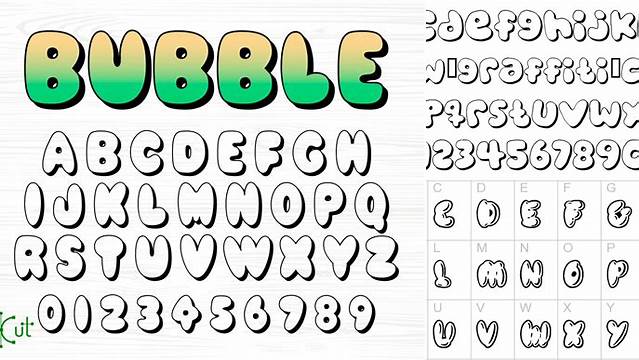
Cool Google Fonts For Bubble Letters
Hey guys! Ever wanted to make some super fun and eye-catching text? Well, Google Fonts are your best friend! And when it comes to creating that groovy, bubbly look, you've got a whole treasure trove of options. In this article, we're diving deep into the world of Google Fonts bubble letters, exploring how to pick the perfect font, use them effectively, and even throw in some creative ideas to spark your imagination. Let's get this party started and make some awesome text!
1. Unleashing the Power of Google Fonts for Bubble Letters
So, you're thinking Google Fonts bubble letters, huh? Smart choice! Google Fonts is this amazing, free library with tons of fonts, all ready for you to use. The beauty of it is that you can use them for pretty much anything – your website, your social media posts, or even printed materials. You don't have to worry about licenses or anything like that. It's totally free! Bubble letters are these rounded, playful fonts that are perfect for grabbing attention. They're fun, friendly, and just scream “look at me!” Think about those cool posters, party invitations, or even logos that have that bouncy feel. Google Fonts offers a bunch of options to nail that look. Plus, they’re super easy to integrate into whatever you’re working on. Whether you're a seasoned designer or a total newbie, Google Fonts make it simple to bring your bubble letter visions to life. From simple websites to fancy print materials, these fonts can bring a sense of fun and creativity to your designs. You can find tons of resources to help you, and once you get the hang of it, you’ll be creating awesome designs in no time. This way, you can create a unique style that resonates with your audience and make your content stand out. It's time to create some fantastic designs!
2. The Best Google Fonts for Bubble Letter Designs
Alright, let's get down to the nitty-gritty and talk about the best Google Fonts for those awesome bubble letters. Choosing the right font is like picking the right outfit – it needs to match the occasion and your personality! First up, we've got Fredoka One. This font is bold, rounded, and super friendly. It's perfect for headlines and short text blocks. It has a great vibe for kids' stuff, invitations, or anything that needs a touch of fun. Next, we have Luckiest Guy. This font is more playful with a handwritten feel, so it's a great choice if you want something that looks like it was drawn by hand. It's perfect for adding a bit of personality. Then there's Chewy. This one’s a true bubble font with a rounded shape and a smooth, almost fluffy appearance. It’s perfect for creating that classic bubble letter look. Other great options to consider are Bangers, Permanent Marker, and Coming Soon. These fonts offer different styles of bubble-like text, ensuring your designs are unique. Try out a few different fonts and see which ones fit your design best. Remember, the best font is the one that fits your project. You can check the Google Fonts website. Play around with them, see how they look in different sizes, and experiment with colors. Have fun finding the right font!
4. Tips for Maximizing the Impact of Your Bubble Letter Fonts
So you've chosen your font, and you're ready to create something awesome using Google Fonts bubble letters? Awesome! Here are some pro tips to make your designs pop. First, think about the context. What's the message you're trying to convey? Is it for a kids' party or a professional logo? The context will help you pick the right font and styling. Next, play with color. Bubble letters are all about being fun, so don't be afraid to use bright colors, gradients, or patterns. Contrast is key. Ensure your text stands out from the background. Experiment with different colors to see what works best. Consider the size and spacing. Bubble letters can look great at large sizes. Make sure your text is legible. Also, pay attention to the spacing between the letters. Too close, and they'll look cramped; too far apart, and they’ll lose their impact. Don’t overload your design. Less is often more. Keep your text concise and your layout clean. Make sure the font is legible at different sizes. Use different font weights and styles to give visual interest. If you’re designing for print, make sure to consider things like paper type and printing techniques. It’s about creating a balance between the font and the overall design. Your goal is to make a statement, so experiment with different elements to see what works best.
5. Bubble Letter Styles: From Classic to Contemporary
Okay, let's talk about the different styles you can create with Google Fonts bubble letters. You can create a classic look, which includes rounded shapes, thick outlines, and bright colors. These are perfect for invitations, posters, and anything that needs a touch of nostalgia. You can also go modern by adding shadows, gradients, and 3D effects. This gives the letters a more contemporary feel, perfect for logos, websites, and social media graphics. Experiment with different effects to create something unique. How about a vintage style? Consider using textures, distressed effects, and muted colors. Combine these with a bubble font for a retro vibe. You can even personalize the style by adding embellishments. Think about hearts, stars, or any other element that suits your message. Create layered designs by stacking letters on top of each other, or try incorporating a background. Combine styles and effects to create a unique design that is perfect for your needs. The key is to have fun and experiment. Try different approaches until you find what works best. Make sure the style is easy to read. Create visual elements to catch the viewer's attention. Ultimately, the style you choose depends on your project and preferences, so have fun exploring all the options!
6. Pairing Bubble Fonts with Other Font Styles for Stunning Designs
Want to take your Google Fonts bubble letters designs to the next level? Try pairing them with other fonts! Combining fonts can create a balanced and visually interesting design. Here's how to do it. First, consider the combination. Pair a bubble font with a clean, sans-serif font for a modern look. This contrasts the playfulness of bubble letters with a clean look. Next, pair a bubble font with a classic serif font for a vintage or retro feel. Choose fonts that complement each other. Consider the style and tone of the fonts. Don’t pair two fonts that compete for attention. The goal is to use the secondary font to highlight the primary font. Think about the hierarchy. Use your bubble font for headings and titles, and the other font for body text. This will help readers easily understand your message. Play with the sizes and weights. Use different sizes and weights to create contrast and make your design dynamic. Try combining a bold bubble font with a lighter sans-serif font for a balanced look. Try different combinations and see what works best. The important thing is to make sure your fonts complement each other. By experimenting with different font combinations, you can create designs that are both beautiful and effective. Experiment to see what works best for your projects!
7. Creative Uses of Google Fonts Bubble Letters in Different Fields
Google Fonts bubble letters aren't just for kids' birthday parties. They're super versatile and can be used in all sorts of different fields. In graphic design, they're perfect for logos, branding materials, and social media posts. The playful look helps your brand stand out and convey a sense of fun. In education, use them for classroom decorations, posters, and learning materials. Bubble letters make learning fun for kids! For marketing, bubble fonts are great for creating eye-catching ads, flyers, and website graphics. These draw the eye and grab attention. In event planning, use them for invitations, banners, and decorations. They add a festive and playful touch. In the fashion industry, bubble fonts can be used for clothing designs, website layouts, and promotional materials. In the food industry, bubble letters are perfect for menu boards, food packaging, and restaurant signage. They add a fun and approachable vibe. The key is to be creative and think outside the box. Consider the tone and message you're trying to convey and choose a font that fits. By using Google Fonts bubble letters in a creative way, you can create designs that are both visually appealing and effective. Remember to consider your target audience and the overall branding of your project.
8. Bubble Letter Animation and Motion Graphics with Google Fonts
Want to make your Google Fonts bubble letters even cooler? Try adding animation! There are tons of ways to bring your bubble letters to life using motion graphics. First, you can create animated logos. An animated logo can make your brand more memorable. You can use animation to show off your brand. Next, try animating text for social media. Animated text grabs attention. You can create short videos. Then, try creating animated website headers. An animated header can make your website more engaging. Use animation to introduce a sense of fun. Also, use animation for video intros and outros. Animated text can be incorporated into your videos. You can use them to create transitions and add effects. Consider creating animated presentations. Animated text can make presentations more interesting. There are many tools available, and they are usually easy to learn. With a little practice, you can easily create fantastic animated content using Google Fonts bubble letters. Always make sure the animation enhances the message. Make sure the animation doesn't distract from the core content. Use animations to communicate a sense of playfulness. Experiment with different animations to find the right style for your project.
9. Google Fonts Bubble Letter Generator Tools: A Quick Guide
Okay, guys, let’s talk about some quick ways to create Google Fonts bubble letters. There are tons of online tools and Google Fonts bubble letter generators that can help. These tools let you type in your text, select a Google Font, and instantly see what it looks like. Many tools offer options to customize the appearance of your letters. You can adjust the size, color, and effects. Many generators also allow you to download the image of the text. Some generators even provide options for animation or 3D effects. When selecting a generator, consider ease of use, customization options, and the types of outputs it provides. You can use these tools to generate text for social media posts, website graphics, or even print materials. Some of them let you add special effects like shadows and outlines to your letters. You can create text in different styles. By using these tools, you can save time and create amazing bubble letters quickly and easily. There are free and paid options. Be sure to check the terms and conditions of use. Most of the online tools are easy to use, so you can start creating designs right away. Have fun playing around with them!
10. Bubble Letter Digital Art: Creating Wallpapers and Digital Artworks
Ready to get creative with Google Fonts bubble letters? Dive into the world of digital art! You can create beautiful wallpapers for your phone or computer. Create custom wallpapers with unique designs. You can create backgrounds by adding shapes, gradients, and textures. Add a personal touch to your device. You can also create digital artwork for social media. Use your artwork to create posts. Add your creations to your feeds. Next, you can design printable art. Create art to print and frame. Customize your home decor. Experiment with color palettes, effects, and layouts to make your artwork unique. You can design patterns and textures to use in your artwork. Play around with different styles, from simple to complex. Use these fonts to create graphics for stickers, posters, or even merchandise. There are so many options! The key is to experiment and have fun. The best part is that you can share your artwork online with your friends and family. Digital art can be a great way to express yourself and show off your creativity. Create artwork that reflects your style and personality. Let your creativity run wild and create stunning digital artworks.
11. Customizing Bubble Letters: Adding Shadows, Outlines, and 3D Effects
Want to make your Google Fonts bubble letters even more impressive? Let's talk about customizing them with cool effects! Adding shadows is a great way to give your letters depth and make them pop off the page. Shadows can create a 3D effect. You can add a drop shadow to give the letters a shadow. Next, add outlines to create a defined look. Outlines can help the letters stand out. You can also customize the outline color. Consider adding 3D effects. Create the illusion of depth by adding 3D effects. You can create a 3D letter look. Experiment with gradients. Use gradients to add depth and dimension to your letters. You can use multiple colors. You can add different effects with different software. Try experimenting with your favorite design tools. The goal is to make your letters visually interesting. The best part is that you can experiment with different options until you get it just right. Keep playing around until you find a style that works for you. With these customization options, your bubble letters will definitely grab attention!
12. Bubble Letters for Branding: Logos, Social Media, and More
Google Fonts bubble letters are a fantastic choice for branding. If you want a fun, approachable brand, bubble letters might be perfect! Consider creating logos that are playful and memorable. A logo is often the first thing people see when they encounter your brand. Use bubble letters for social media graphics. Social media graphics will make your posts stand out. You can also create fun and engaging content to connect with your audience. For packaging design, bubble letters can add personality to your products. Use bubble letters for advertising campaigns. Bubble letters will catch the eye and grab attention. Consider using bubble letters in your website design. Use bubble letters to create a friendly and approachable feel. Remember, consistency is key when branding. Use your font across all platforms to create a consistent brand identity. Play around with the fonts and the colors. By using Google Fonts bubble letters in your branding, you can create a memorable identity. With this approach, you can create a brand that resonates with your target audience. You can create an identity that builds trust and loyalty.
13. Bubble Letter Printables: Invitations, Posters, and Decor
If you're looking for fun and easy ways to use Google Fonts bubble letters, printables are the way to go! You can create custom invitations for birthdays, parties, or any special event. Invitations are great to add fun and personality. For your kid's room, create posters with fun messages or quotes. Decorate the walls with a playful vibe. Design personalized name tags for events. Use printables to decorate your home or office. Create calendars, planners, and to-do lists to keep organized. You can create wall art. Remember to choose the right font and colors for your printables. Make sure your design is legible. You can easily download Google Fonts and use them in your favorite design software. Consider the paper quality and the printing process. You can create various fun items. Printables are a great way to add a personalized touch to your projects. With a bit of creativity, you can create unique and beautiful printables.
14. Typography and Legibility: Ensuring Your Bubble Letters are Readable
While Google Fonts bubble letters are fun, it's crucial to prioritize legibility. Make sure your text is easy to read. First, consider the font size. Choose a size that is appropriate for your project. A good font size is critical to legibility. Next, think about the font color. Ensure there’s enough contrast between the text and the background. This will make the text stand out. Use good contrast to help the text stand out. Choose the right font weight. Use a font weight to make the letters clearer. Don’t use too many special effects, as they might hurt readability. Consider the spacing between letters. Adjust the spacing to make your letters readable. Remember to choose a font that suits your project. Always proofread your text to catch any errors. If you're using bubble letters for body text, keep it concise. By keeping these tips in mind, your bubble letters will be not only stylish but also easy to read. Readable fonts are important to keep your message clear.
15. Bubble Lettering for Kids: Educational and Creative Activities
Google Fonts bubble letters are a fantastic way to engage kids in educational and creative activities. They make learning fun and exciting! Use bubble letters to create learning materials. Bubble letters can make lessons more fun. Create alphabet posters or flashcards with bubble letters. Your kids will love learning the alphabet. Next, have kids practice writing their names and words. Use bubble letters to make it fun. This will make it easier for kids to remember the words. You can also incorporate bubble letters into coloring pages. Encourage kids to decorate the letters with colors. This will help them develop their creativity. Create word puzzles and games. Create a variety of fun activities. You can create DIY projects. Bubble letters are perfect for creative activities. Use bubble letters for art projects. Involve your kids in a variety of activities to enhance their creativity. With a little creativity, you can create fun and educational activities that keep your kids entertained. Make sure the activities are age-appropriate and fun. Using Google Fonts bubble letters can spark creativity in kids!
16. Using Bubble Letters in Website Design: Making Your Site Fun
Want to make your website more fun and appealing? Consider using Google Fonts bubble letters! They can add a playful and inviting touch to your site. Use bubble letters for headlines and titles to grab attention. This will draw the visitor's eye. Use them for navigation menus. This will make your site more accessible. Create call-to-action buttons. This will encourage visitors to take action. Use bubble letters in your website's logo. Bubble letters can create an inviting feeling. Use them for your website's social media content. Use bubble letters to create a playful design. Avoid using bubble letters for large blocks of text, as they can be hard to read. Make sure the font is legible at different sizes. Use the font consistently to build a cohesive look. Bubble letters are best used for a specific design. By carefully incorporating Google Fonts bubble letters into your website design, you can make your site more fun and engaging.
17. The Psychology of Bubble Letters: What They Convey
Have you ever wondered what kind of message Google Fonts bubble letters send? Understanding the psychology behind them can help you use them more effectively. Bubble letters typically convey playfulness. They look friendly and approachable. They can create a sense of fun and joy. They can give the impression of youthfulness. They tend to be associated with children. They create a feeling of optimism and positivity. They're great for brands that want to seem approachable. Bubble letters are often used for kids' products. They are also often used for lighthearted events and promotions. The use of a bubble font can influence how people perceive a brand. Think about the message you want to send and whether bubble letters fit that message. By understanding these associations, you can choose fonts that match your project. Use bubble letters to communicate your message effectively.
18. Google Fonts Bubble Letters for Special Occasions and Events
Want to make your special occasions and events more memorable? Google Fonts bubble letters are perfect for adding a touch of fun! Use them for birthday invitations. Bubble letters are great for kids’ parties. Create fun and festive banners. You can make banners for parties. They can enhance the visual appeal of an event. You can create wedding signage. Create custom wedding signage with fun text. They're also great for creating event posters. You can create posters for charity events. Make use of different colors and designs. Combine bubble letters with other design elements. Always make sure the text is readable. Bubble letters can enhance any event. Create unique designs to enhance your event. By using these fonts, you can make your events more special and memorable. Have fun and create something creative. Use these fonts to bring a touch of fun to your events!
19. Combining Bubble Letters with Images and Graphics
Want to take your designs with Google Fonts bubble letters to the next level? Try combining them with images and graphics! This can create visually stunning and compelling designs. Start by pairing your bubble letters with illustrations. Add a graphic element that corresponds with your words. Use bubble letters with photographs. You can use this for social media posts. You can create eye-catching graphics for posters. Next, create a design that combines both the texts and the images. Make sure both elements complement each other. Use images and graphics to enhance the meaning. Try playing around with color combinations. Make sure the image and the text look good. Use effects like shadows or outlines. The goal is to create a dynamic design. Combine different elements to create a great design. By combining bubble letters with images, you can create designs that are visually appealing and convey your message effectively. It is a perfect way to enhance your message. Let your creativity run wild!
20. Advanced Google Fonts Bubble Letter Techniques: Shadowing and Effects
Ready to get more advanced with your Google Fonts bubble letters? Let's explore some cool techniques like shadowing and special effects! First, try adding a drop shadow. This will give your letters a 3D look. You can create a shadow with a subtle color or an outline. You can create the effect on your design software. Next, create an outline around your letters. You can customize the outline with different colors. You can add more interest to your design. You can also try creating a gradient effect. This creates a smooth transition of colors. Use gradients to add depth and dimension to the letters. Try different color combinations. You can create a unique style. Then try layering effects on top of your letters. Combine the different elements to create your design. You can even try adding textures. This adds depth and visual interest. Use these techniques to create stunning visual elements. Experiment to see what you can create. By experimenting with these advanced techniques, you can make your bubble letters look even more interesting.
21. Bubble Letters and Accessibility: Ensuring Inclusivity
When using Google Fonts bubble letters, it's important to think about accessibility to make sure everyone can enjoy your designs. The goal is to make your design accessible to all users. First, focus on contrast. Ensure your text contrasts well with the background. This will make it easier for people with visual impairments to read. Then, think about font size. Use a font size that is easy to read. This is especially important for people with visual impairments. Then, try to avoid complex designs. Complex designs can be hard to interpret. Keep your designs clean and simple. Remember the importance of alternative text for images. Add alternative text to your images. Use clear and concise text to describe your images. Make sure your designs are easily accessible. Keep your design accessible to all people. This approach can make your content accessible to a wider audience. Accessible designs are inclusive designs. Always prioritize accessibility in your design.
22. Designing Bubble Letter Logos: Tips for Success
Want to create a cool logo with Google Fonts bubble letters? Awesome! Here are some tips to help you succeed! First, define your brand. Define your brand's personality, values, and target audience. This will make your logo more meaningful. Then, brainstorm ideas. Experiment with different colors and styles. Next, choose the right font. Pick a bubble font that reflects your brand's personality. Don't be afraid to experiment with different fonts. The font is very important for your logo. Keep your logo simple. Avoid clutter and too many details. Make sure it is clear and memorable. Make sure your logo is versatile. Choose a design that looks good at different sizes. The logo is the heart of your brand. You can use online design tools to help you create your logo. Remember, your logo is the face of your brand. By following these tips, you'll be well on your way to creating a successful and memorable logo.
23. Bubble Letters in Education: Classroom Resources and Activities
Google Fonts bubble letters are a fantastic way to make learning fun and engaging in the classroom. They can turn boring lessons into exciting experiences! Use bubble letters to create colorful alphabet posters. Create visually appealing posters for the kids. Use them in flashcards to teach the alphabet. Use these to teach kids how to spell. Next, use bubble letters to create classroom decorations. You can create banners with fun messages. Involve your students in decorating the classroom. You can use bubble letters in worksheets and assignments. Create word searches with bubble letters. Then, introduce bubble letters into creative writing activities. Involve kids in fun activities. These activities will keep the students engaged. Experiment with different colors and designs. It is also important to match the activities to the age and the level of the students. With Google Fonts bubble letters, you can turn any learning material into a fun and engaging activity. You can bring learning to life.
24. Bubble Letter Variations: Exploring Different Styles and Forms
Ready to get creative with Google Fonts bubble letters? There are several variations you can explore to spice up your designs! You can try classic bubble letters, which feature rounded shapes and thick outlines. These are perfect for a retro vibe. You can also experiment with 3D bubble letters. You can use effects like shadows to create the illusion of depth. Create unique looks for your designs. The possibilities are endless. Consider adding different textures to your letters. Add different textures, like glitter. The textures can make your design pop. You can add different effects on your letters. You can use shadow effects. Play around with different approaches to find a style that works for you. With a little creativity, you can create designs that are visually appealing and reflect your style. You can also experiment with color gradients. Create a custom gradient for your design. With all these options, you can create beautiful and unique designs. Have fun exploring different styles and forms.
25. Choosing the Right Font Weight and Size for Bubble Letters
Choosing the right font weight and size is essential when using Google Fonts bubble letters. It affects readability and the overall appearance of your design. The font weight is the thickness of the letters. Use a font weight that suits your design. The font size determines the text's size. Adjust the font size according to your project. Consider the context and the purpose of your design. The right font weight and size can affect your design's success. Always consider the impact. Think about the style and the design. Consider the context to use the right font. The font must be the right size to be read easily. Remember to check how your design looks at different sizes. You can create a balanced and professional design. It's a key part of making your text clear. Make sure it is readable and impactful. These factors can make a big difference in the final look of your design. Make sure that it fits your overall vision.
26. Bubble Letters and Social Media: Captivating Content Creation
Want to make your social media content pop? Google Fonts bubble letters are your secret weapon! They're perfect for creating eye-catching graphics. Use them for eye-catching quotes. Make a statement. Make your content more attractive. Create engaging captions. Use bubble letters to make your captions stand out. You can create shareable graphics for Instagram, Facebook, and Twitter. Make your posts more appealing. You can use them for creating highlight covers. Make your profiles look great. Create graphics that are unique to your brand. Use bubble letters to make your brand visible. Use bubble letters for your stories. With a bit of creativity, you can create posts that get noticed. Make your social media game strong. Choose fonts that fit your brand. Consider the colors and effects. Your goal is to make your content visually appealing. Make sure your design resonates with your audience. The ultimate goal is to make your content attractive and engaging.
27. Designing with Bubble Letters in Canva: A Step-by-Step Guide
Canva is an amazing tool to create designs with Google Fonts bubble letters! Let's walk through it together. First, head over to Canva and create a new design. You can select a template or create your own. Next, click on the text tool. This tool will add text to your design. Type in your text, and then select a bubble letter font. Canva has tons of Google Fonts available. Experiment with the different font options. Adjust the size, color, and spacing of your text. You can make it look exactly how you want it. Then, add effects. Canva offers options for adding shadows, outlines, and other cool effects. Try different effects to make your text pop. Experiment with backgrounds and images. You can add backgrounds to create a more eye-catching design. Add images and create a layered design. Finally, download your design. Canva will provide the perfect image to fit your needs. Canva's user-friendly interface makes it easy to design anything. Have fun with your design. Have fun with Google Fonts bubble letters in Canva!
28. Bubble Letters for Business: Creating a Friendly Brand Image
If you want to create a brand image that is friendly and approachable, Google Fonts bubble letters are a fantastic choice. They can help you connect with your audience. Use them to create a logo for your brand. Create a logo that fits your business needs. You can use them to create a website that is welcoming and easy to navigate. Make your website look nice. You can use them to create fun social media graphics. Make your social media look great. You can also use bubble letters in your marketing materials. Use the different tools to create a friendly environment. The font creates an approachable and friendly feel. Always match the font to your brand. Consistent use of bubble letters creates a visual identity. Bubble letters can show the personality of your brand. You can create a friendly and approachable brand. Remember, the goal is to make your brand look more appealing. Google Fonts bubble letters help you create a friendly brand image.
29. Troubleshooting Common Issues with Google Fonts Bubble Letters
Running into some hiccups with Google Fonts bubble letters? Don't worry, here's how to fix some common problems. The font not displaying correctly is the first. Double-check that you've correctly embedded the font in your HTML or design software. Be sure to check your CSS code or design settings. The font not rendering might be the second issue. Make sure your design software supports the font. Sometimes, older software versions might cause problems. You may need to upgrade or find an alternative. The third issue is spacing issues. Adjust the letter spacing and kerning to improve readability. There are many options to adjust the design. The fourth issue is legibility problems. Ensure your text contrasts well with the background. The fifth is that the font is too small or too large. Experiment to determine the best size. With a little troubleshooting, you can get these fonts working just the way you want them. You can create amazing and stunning design. Just take your time and follow the basic steps.
30. Future Trends in Bubble Letter Design with Google Fonts
What does the future hold for Google Fonts bubble letters? Let's take a peek at some exciting trends! Look for even more diverse font styles. More font styles will be added to the Google Fonts library. Expect more interactive animations and effects. Expect more animation in your designs. Expect more integration with AI tools. Expect to see AI tools. There is more emphasis on accessibility in design. Remember that the design must be accessible to all. Expect more unique designs. Bubble letters are going to evolve with different effects. The most important trend will be on sustainability and ethical design. The goal is to make the design eco-friendly. The key is to keep exploring. These trends will let you create some amazing things. By staying informed about trends, you can be at the forefront of this amazing art. The future of design is really exciting! Be creative, and enjoy the ride! You can create amazing designs with these fonts. Get ready to embrace the new possibilities.